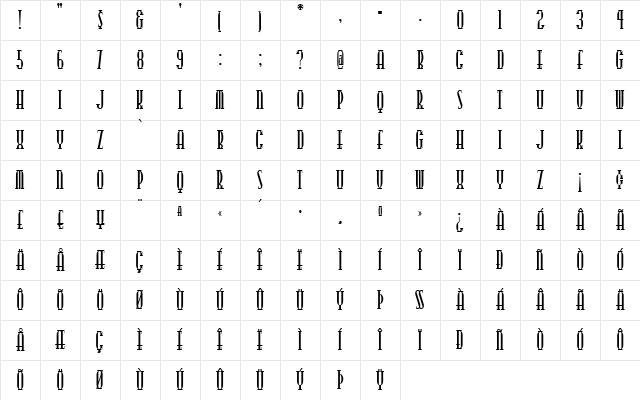
CitySlicker Regular Free Font
CitySlicker Regular
Foundry: Nick's Fonts
Designer: Nick Curtis
Design Context for CitySlicker
CitySlicker is a composed and adaptable typeface that performs quietly and consistently across a wide range of design contexts.